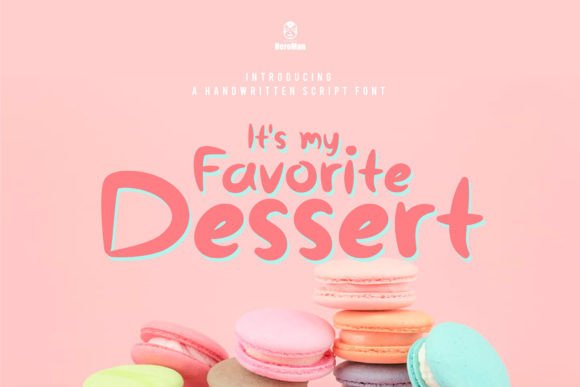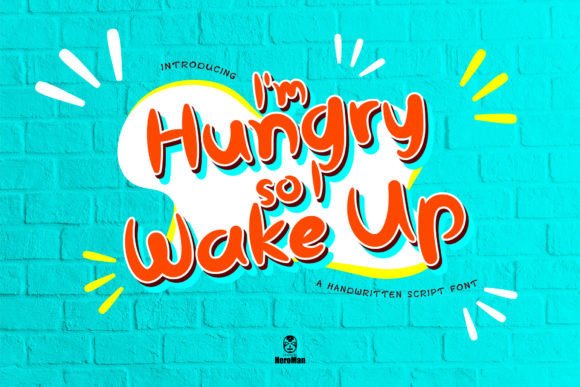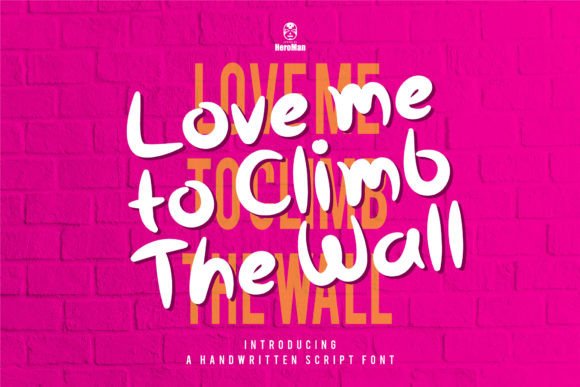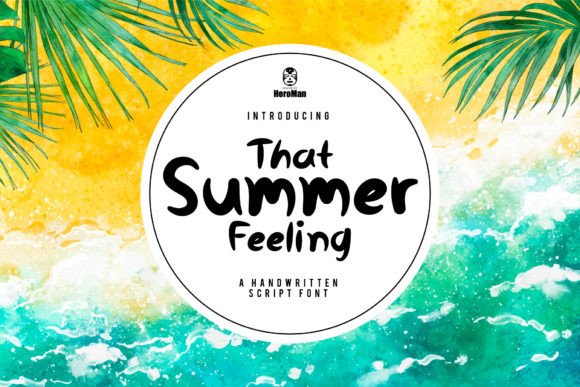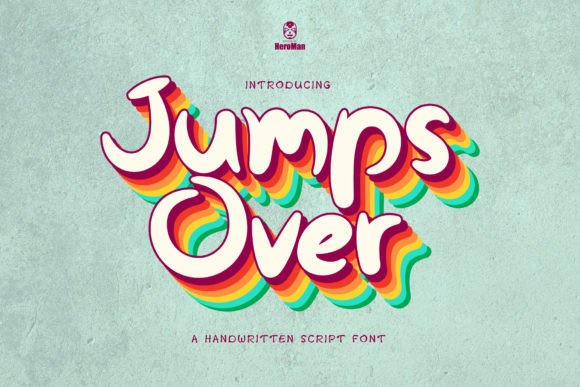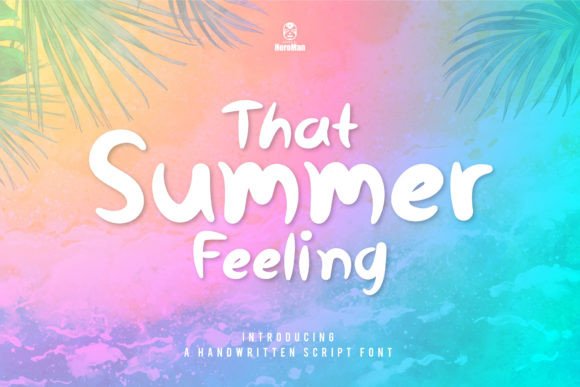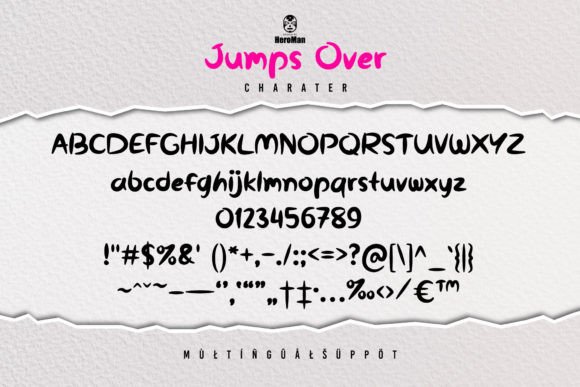
Jumps over Font
About Jumps over Font
“Jumps Over” is a fun and whimsical handwritten font that brings an authentic and playful look to your designs. With its unique style, this font adds a personal and realistic feel, making it suitable for a variety of creative projects.
The whimsical nature of “Jumps Over” makes it a great choice for designs that need a touch of lightheartedness and personality. Whether you’re working on greeting cards, invitations, posters, or any other project that requires a fun and casual vibe, this font can bring a sense of joy and authenticity to your text.
The handwritten quality of “Jumps Over” adds a touch of imperfection and charm, making it stand out in a world of digital fonts. Its versatility allows it to adapt to different themes and contexts, making it a go-to choice for designers who want to infuse a sense of playfulness into their creations.
Incorporate “Jumps Over” into your projects to give your designs a lively and whimsical character. This font is a great addition to your toolkit for creating designs that resonate with a fun and authentic spirit.
In summary, “Jumps Over” is a fun and whimsical handwritten font that brings authenticity and personality to your designs. Its playful look makes it suitable for a range of creative applications, adding a touch of joy and charm to your text.